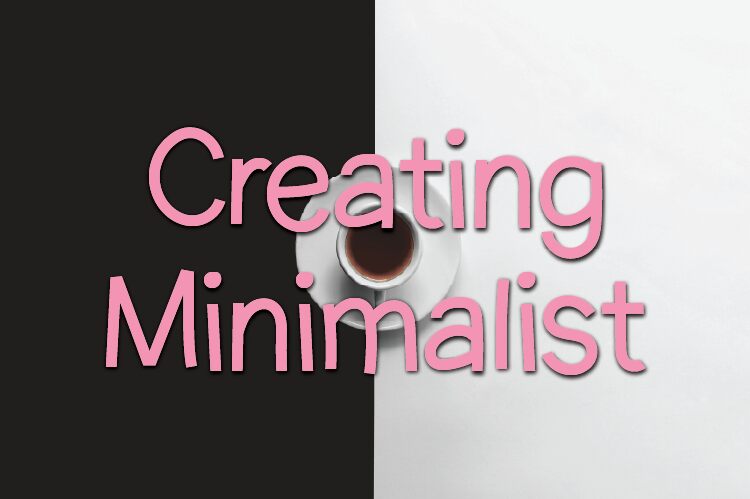
Creating Minimalist font family by Hanna Bie consists of 2 unique font styles that capture attention with their modern and approachable nature. The fancy, sans-serif family offers an informal yet contemporary touch making it perfectly suitable for casual applications in personal branding and digital media. With its inviting and friendly characteristics, it can effectively convey messages that require calmness and subtlety.
Use Creating Minimalist in personal projects to design blog titles, logo designs, website headers, social media banners, stickers, stamps, invitation cards, and flyers. It can also be used for custom print, typography artwork, product packaging, and all sorts of branding purposes.